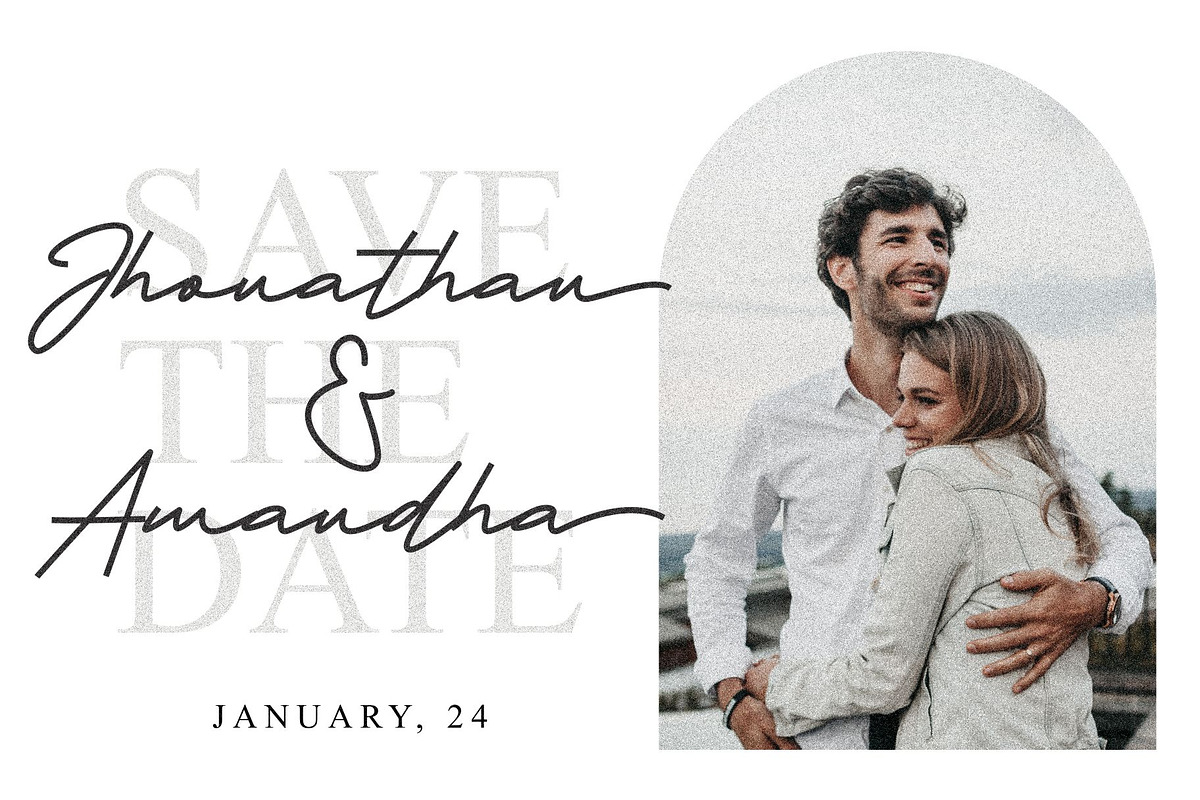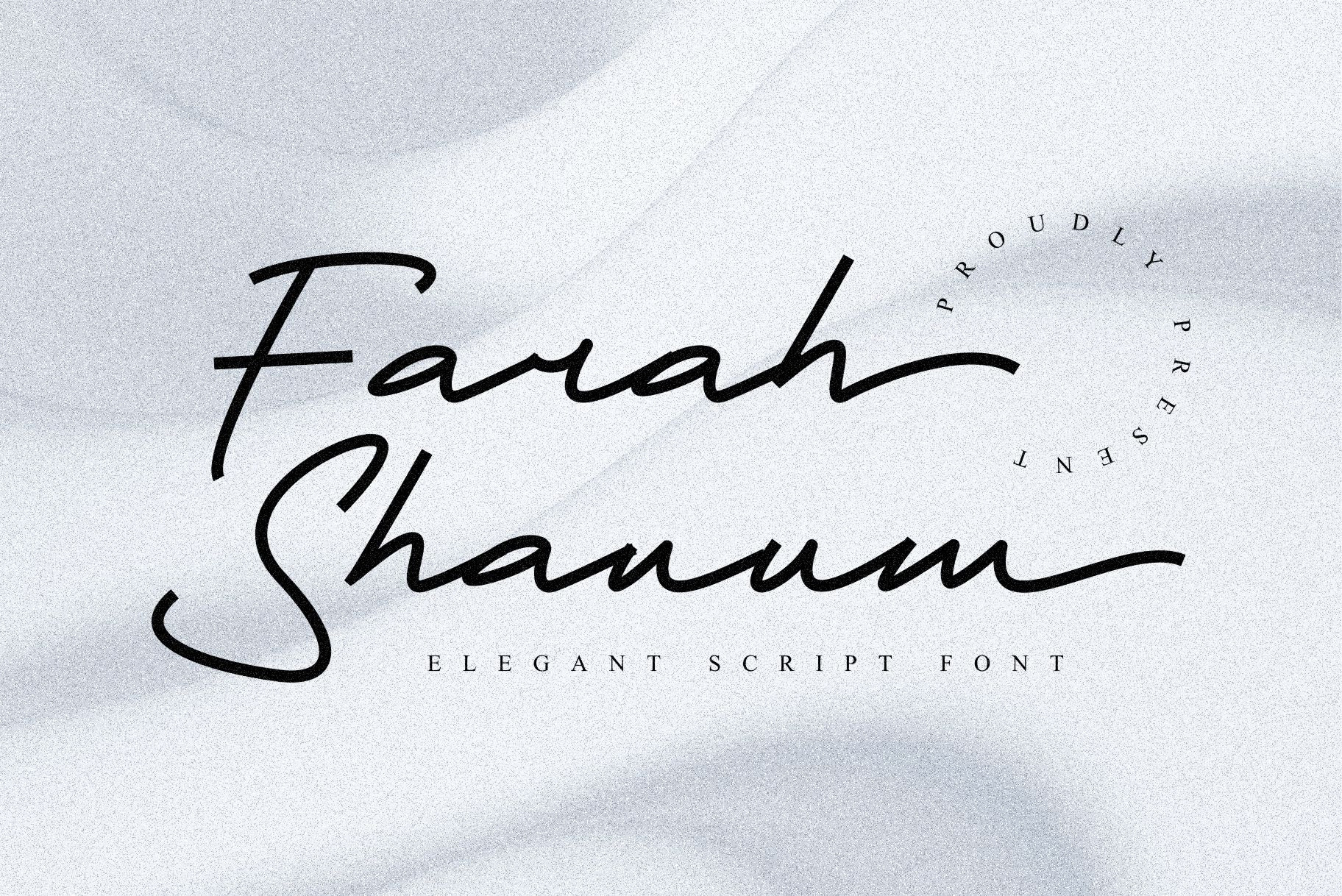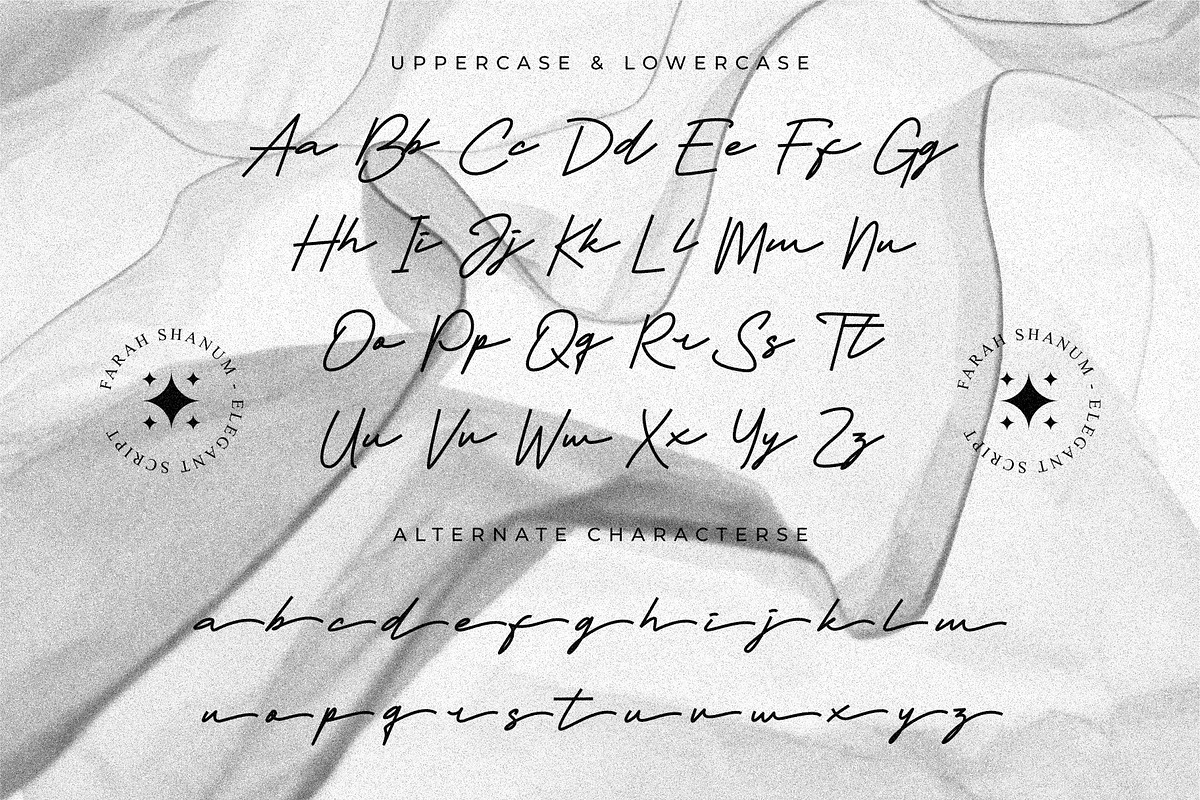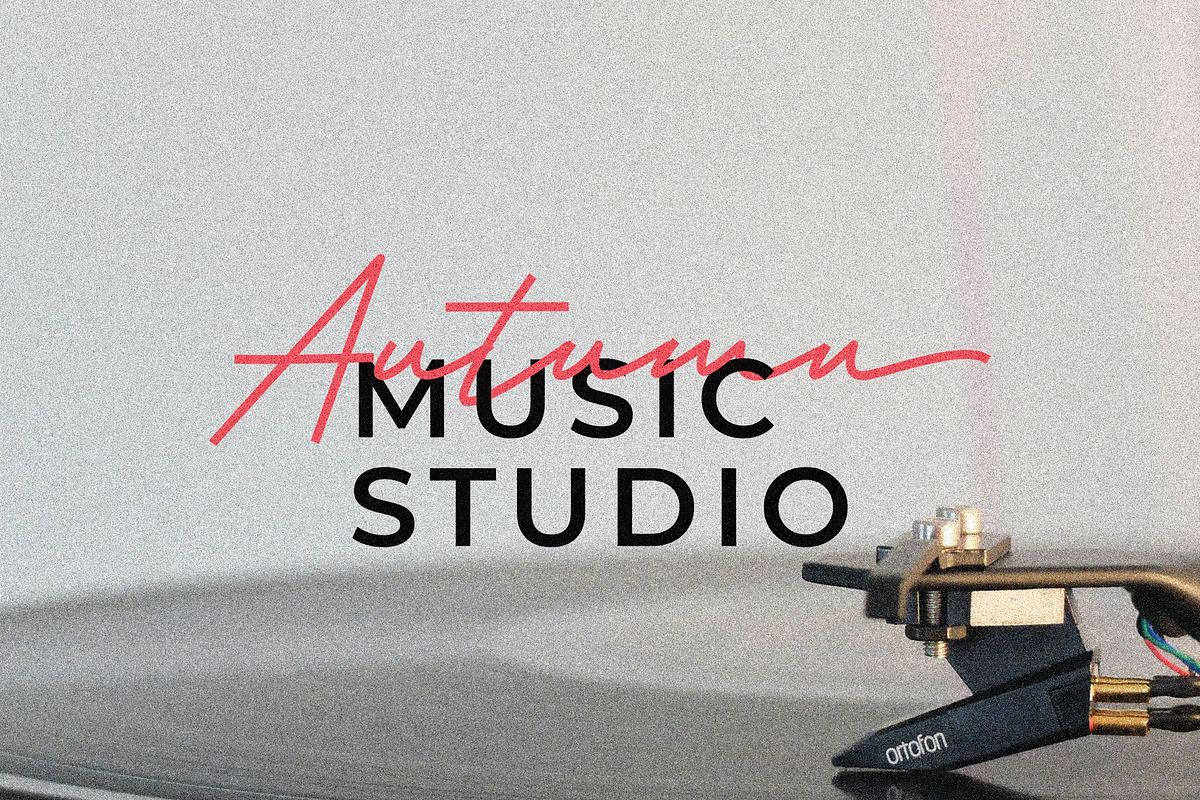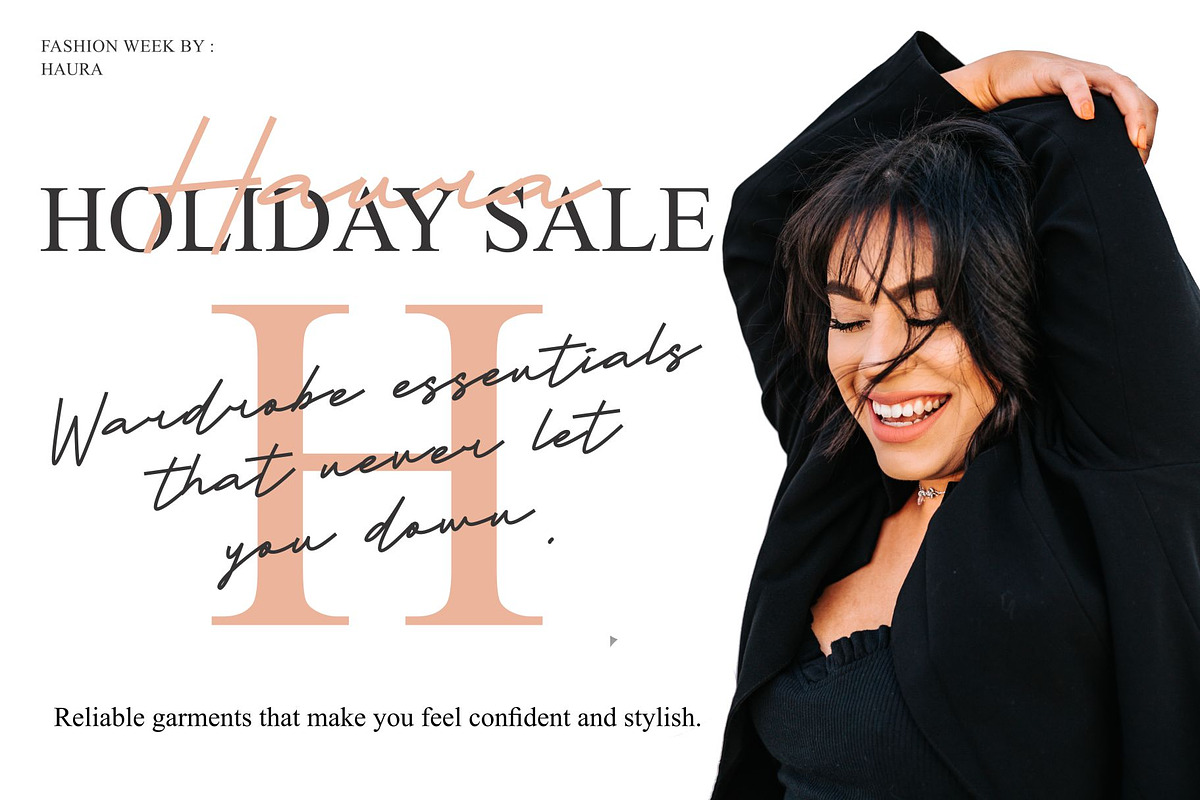
Farah Shanum - Script Font
Farah Shanum is a elegant script with a handwriting style that has alluring looks. It will make every need looks perfect.
Farah Shanum is perfect for branding projects, logo, wedding designs, social media posts, advertisements, product packaging, product designs, label, photography, watermark, invitation, stationery and any projects that need handwriting taste.